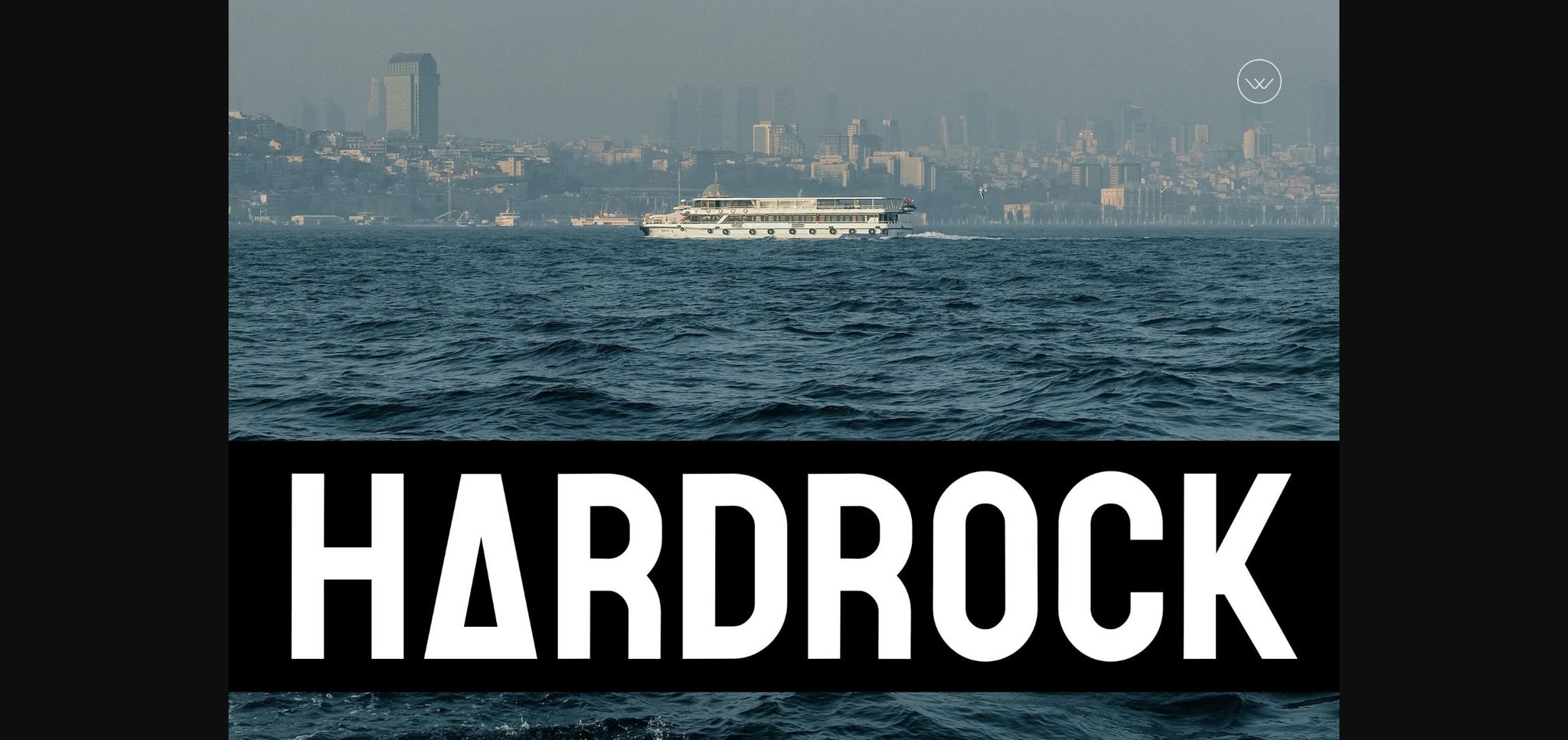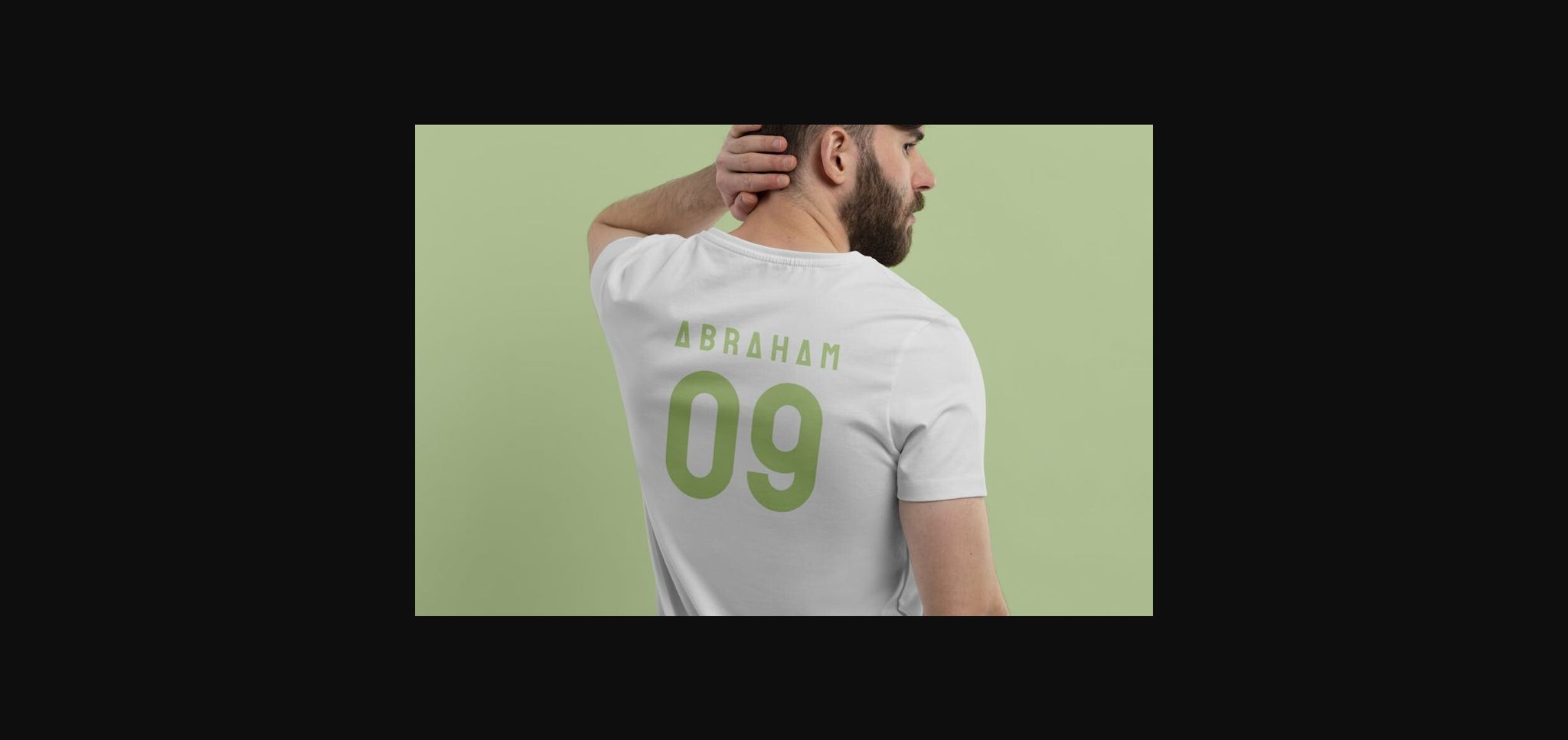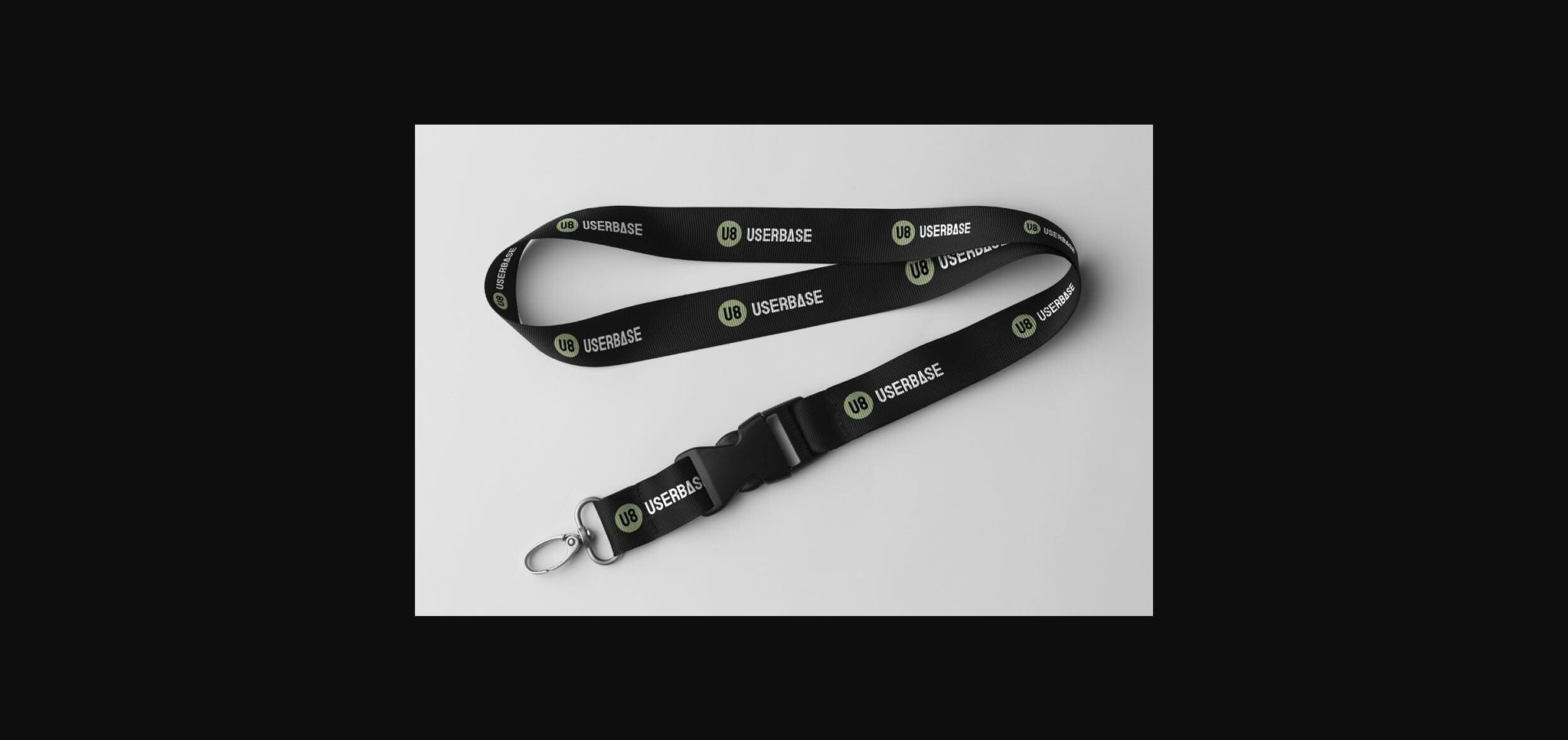
About Hardrock Font
Hardrock is a cool and modern sans-serif font. It is versatile and can be used for a wide range of applications, such as graphic design, text presentation, web and print design, and display. Hardrock is especially well-suited for creating branding and logos, marketing materials, banners, posters, signage, corporate identities, and editorial designs.